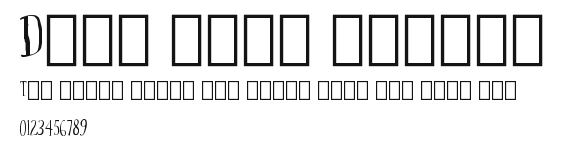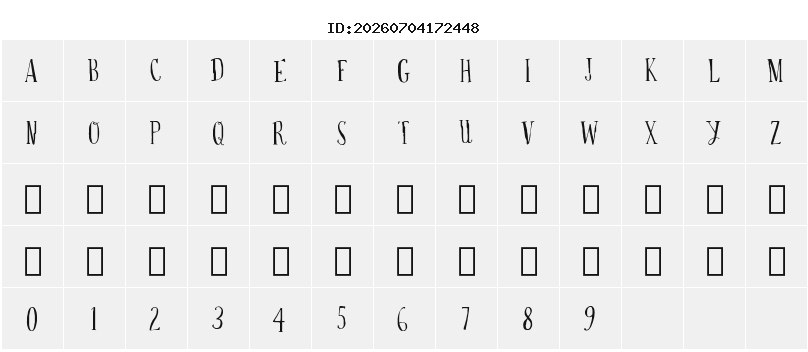
Drop your anchor.ttf
Drop your anchor Preview
• Font Name: Drop your anchor
• Full Font Name: Drop your anchor Regular
• Character Count: 53
About Drop your anchor.ttf
Drop your anchor.ttf is a modern, elegant sans-serif font designed for ultimate readability and visual harmony. Perfect for branding, headlines, web design, and print materials.